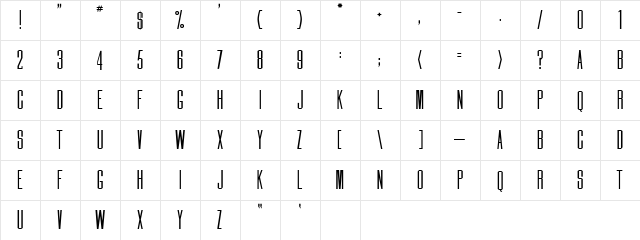
Daily Medium
Design Context for Daily Typeface
Daily takes a measured approach to typography — its balanced proportions and neutral character make it a reliable workhorse for both digital and print work.
Pro Tip: Use Daily in both headline and body roles to test its range before committing to a single application.